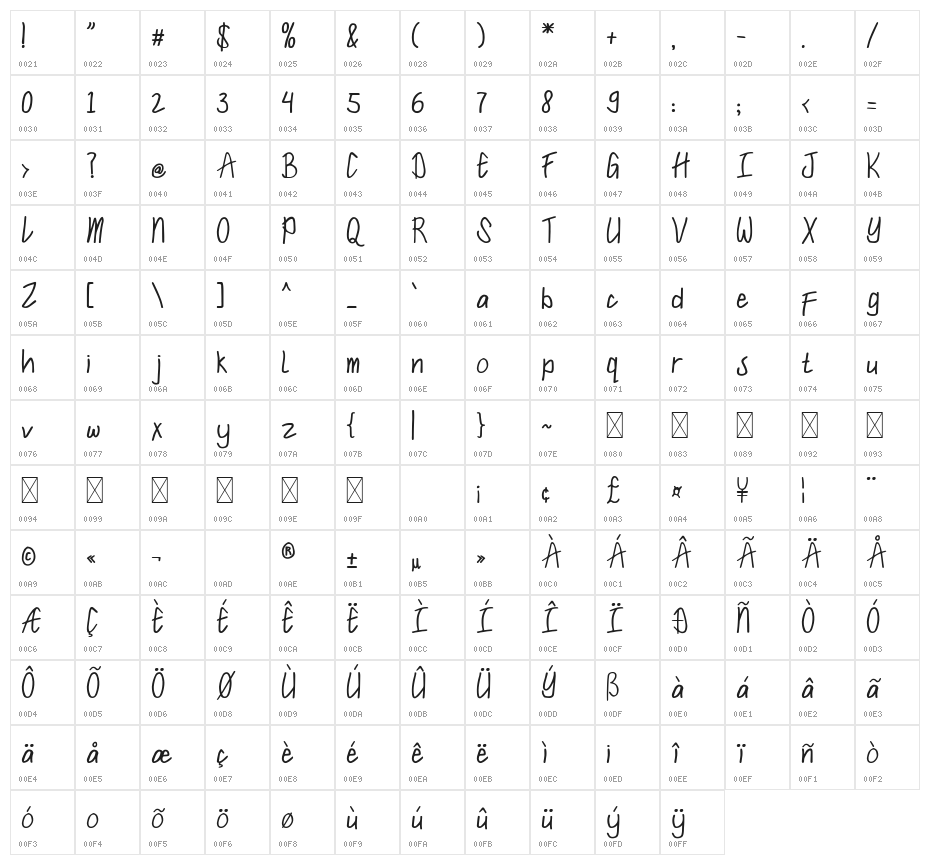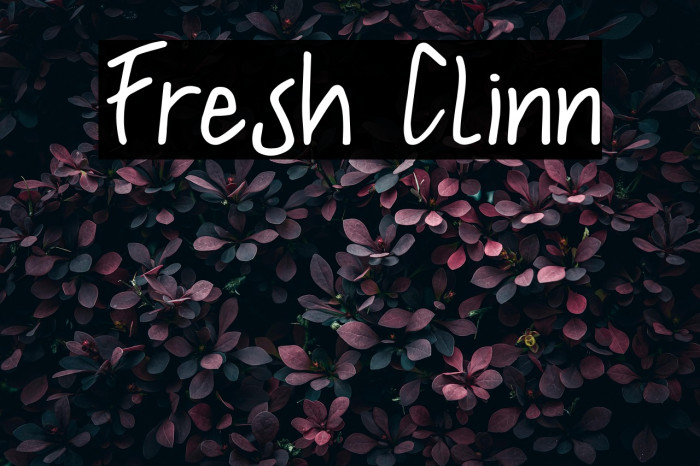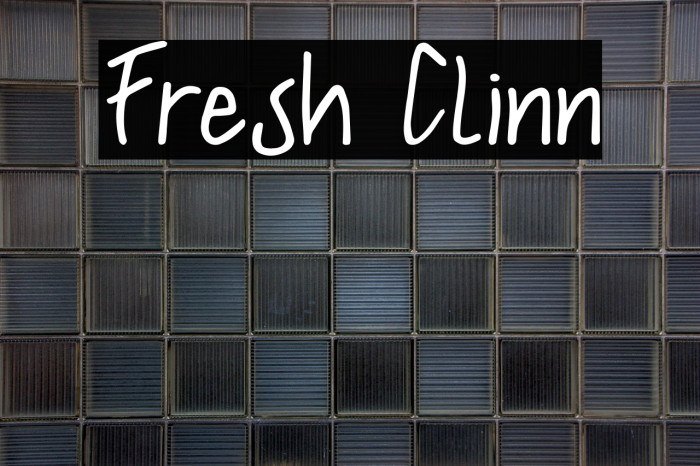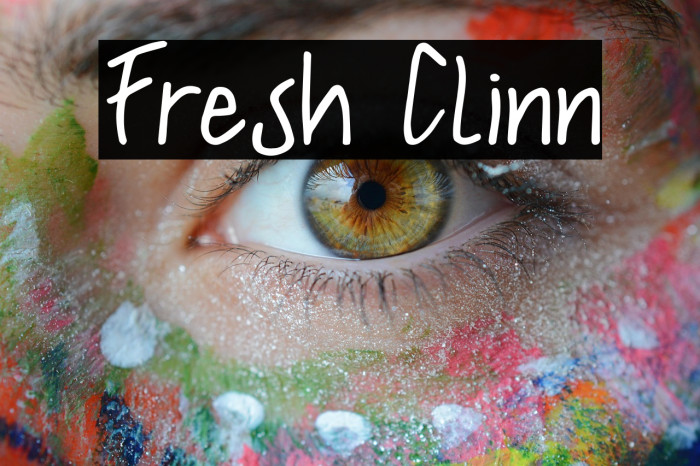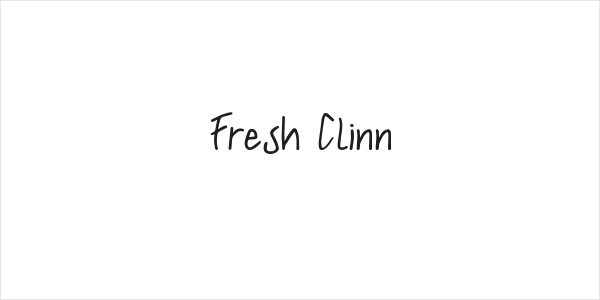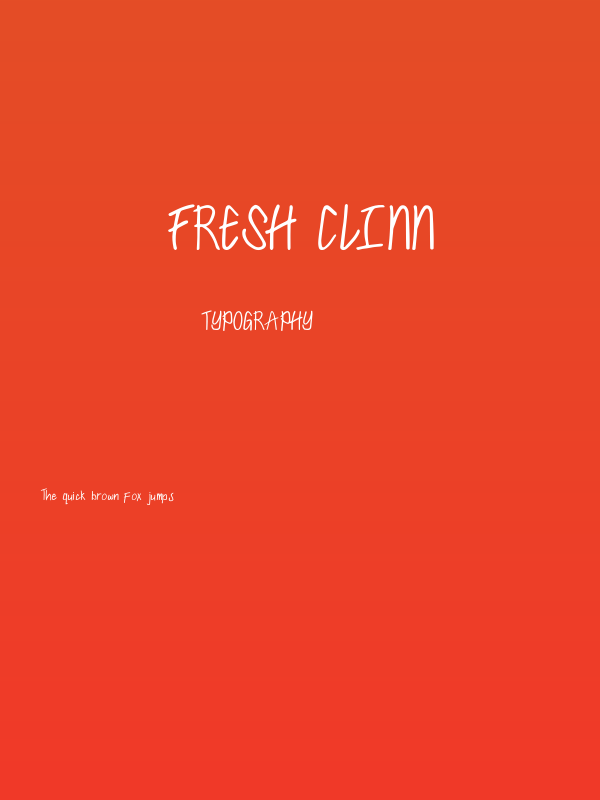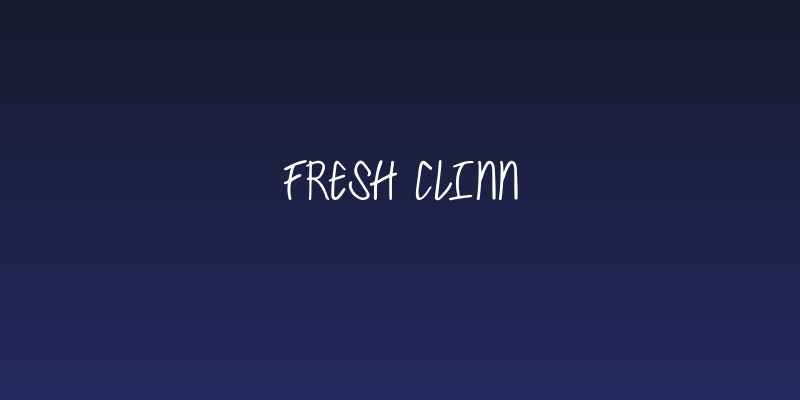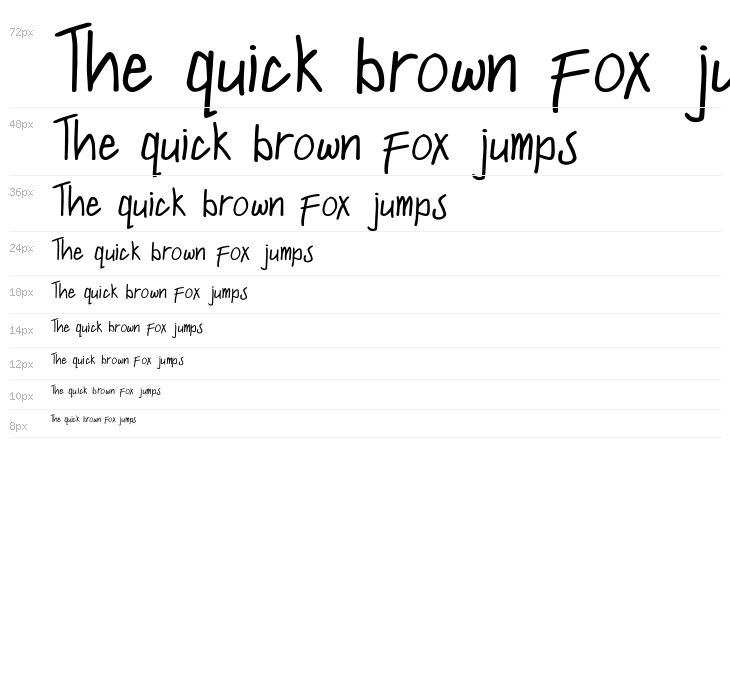
Fresh Clinn Font
Fresh Clinn Description
This font features a playful and informal handwritten style, characterized by its irregular strokes and casual appearance. The uppercase and lowercase letters exhibit a friendly and approachable vibe, with slightly varying heights and widths that add to its charm. The numbers and special characters maintain the same whimsical quality, making the font versatile for creative projects. Its overall design is reminiscent of personal notes or casual invitations, offering a sense of warmth and personality.
| Proposed Projects | Ideal for greeting cards, personal invitations, children's books, and creative branding projects. |